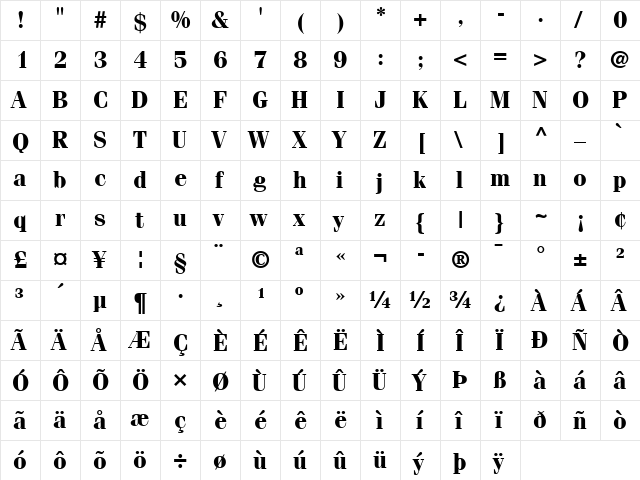
ITCFenice LT Regular Bold Font Preview
ITCFenice LT Regular Bold
ITCFenice LT Regular Bold Font Details
Design Context for ITCFenice LT Regular Typeface
ITCFenice LT Regular takes a measured approach to typography — its balanced proportions and neutral character make it a reliable workhorse for both digital and print work. The heavy weight commands attention and anchors typographic hierarchies.